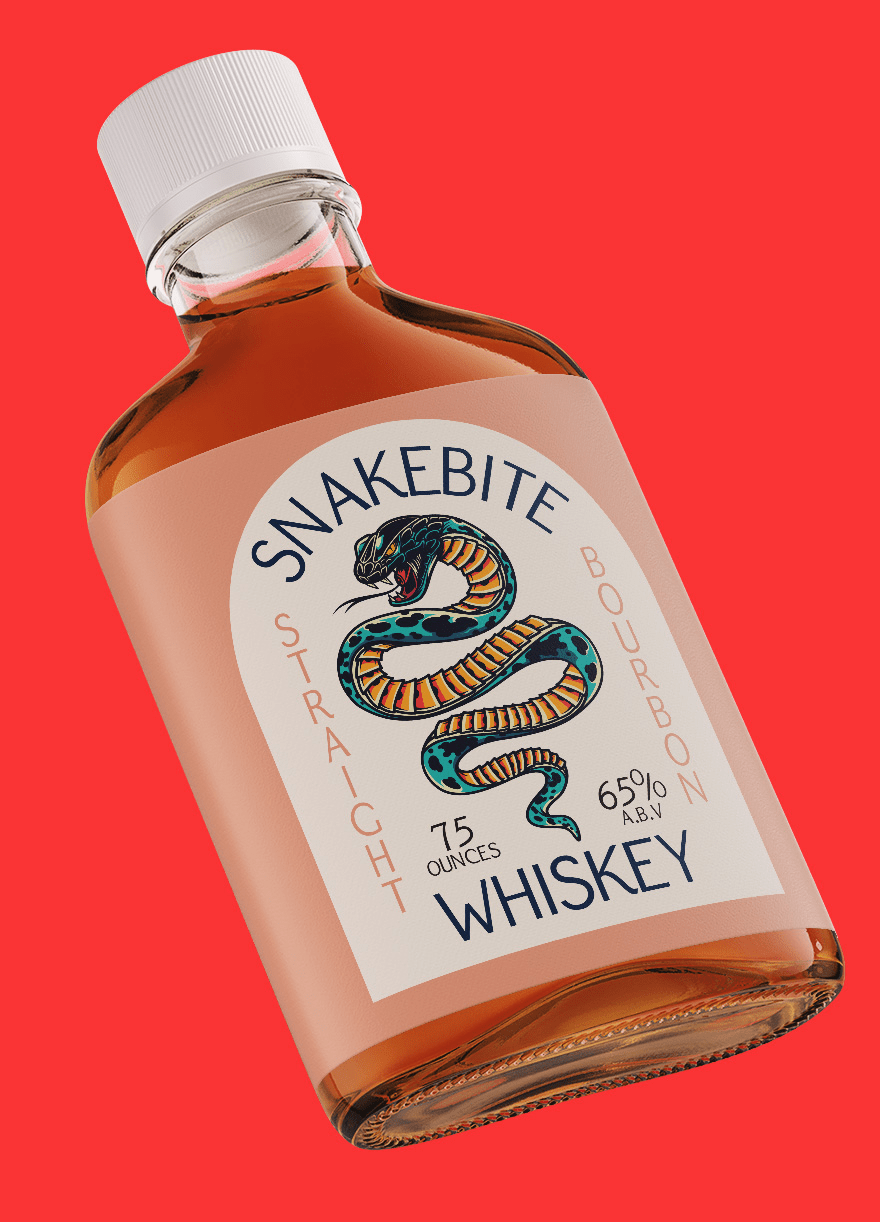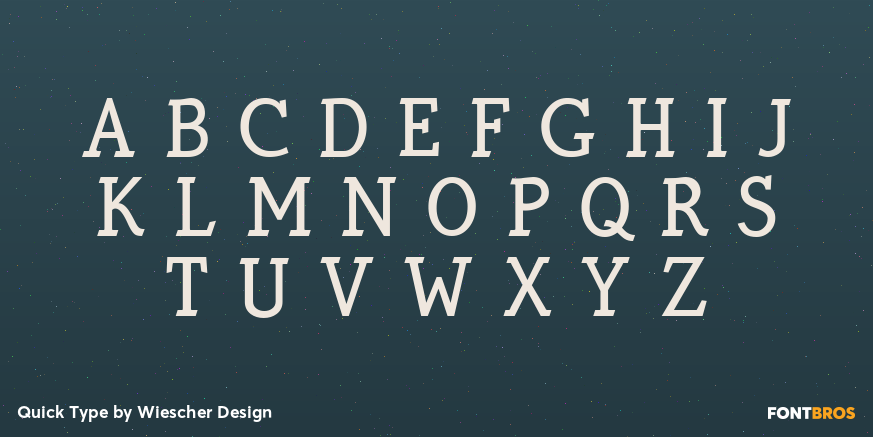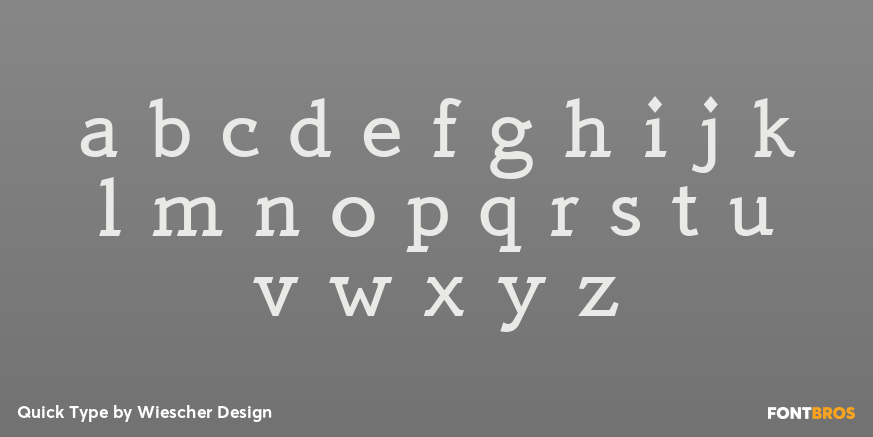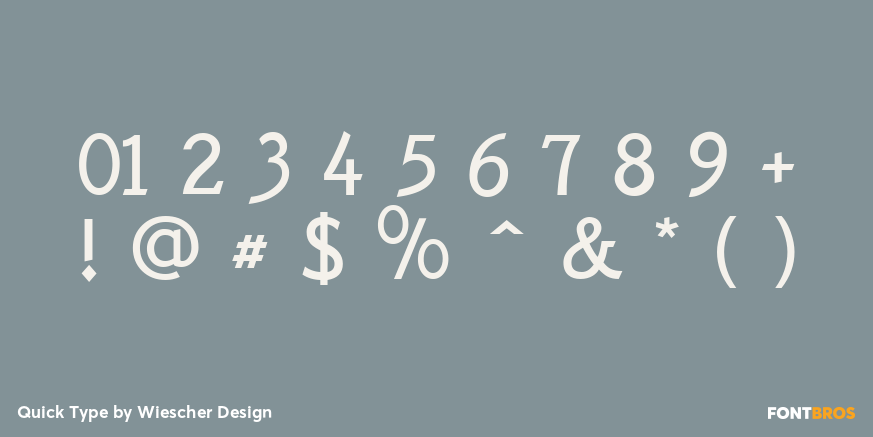
Quick Type
Font Family by Wiescher Design
QuickType is a typeface I designed for demonstration purposes. I used it to illustrate my first book about type design. It has crooked slab serifs and looks very much like a typewriter font. But in order to make things clear I had to overdo some curves and so QuickType turned out a very distinct typewriter typeface. Since those days I worked on the shapes from time to time, so it got better and I extended it to include several neccessary cuts. Now it is a full fledged very usable font. Yours very quick Gert Wiescher.